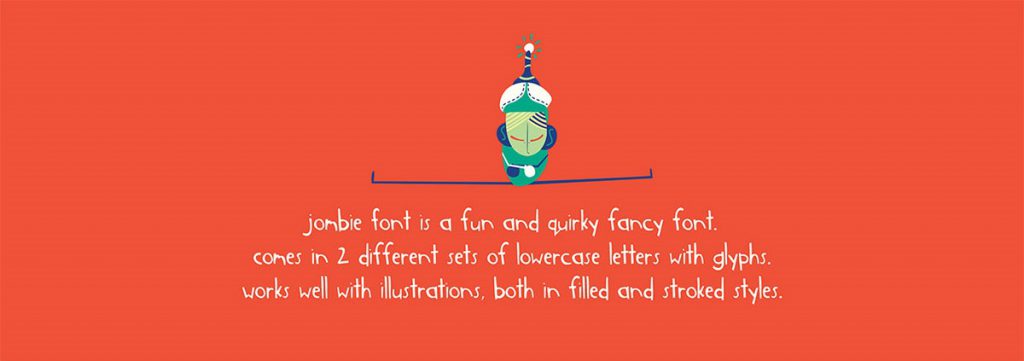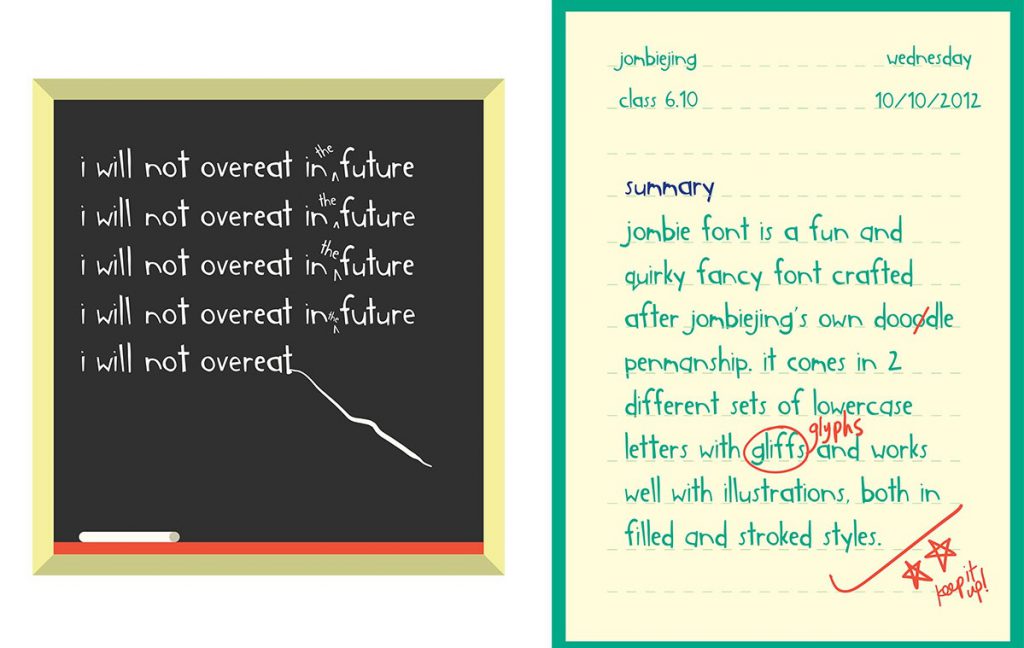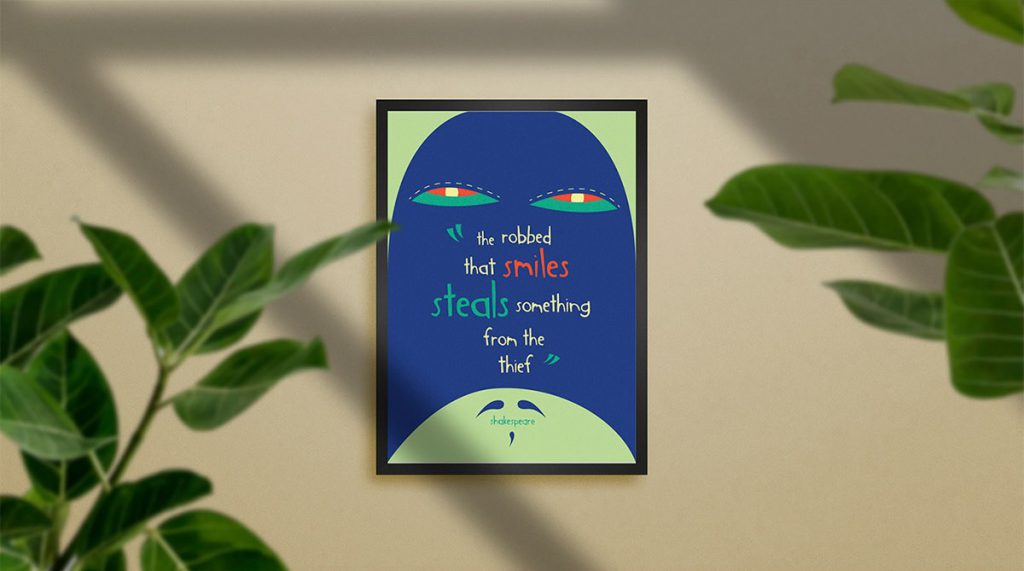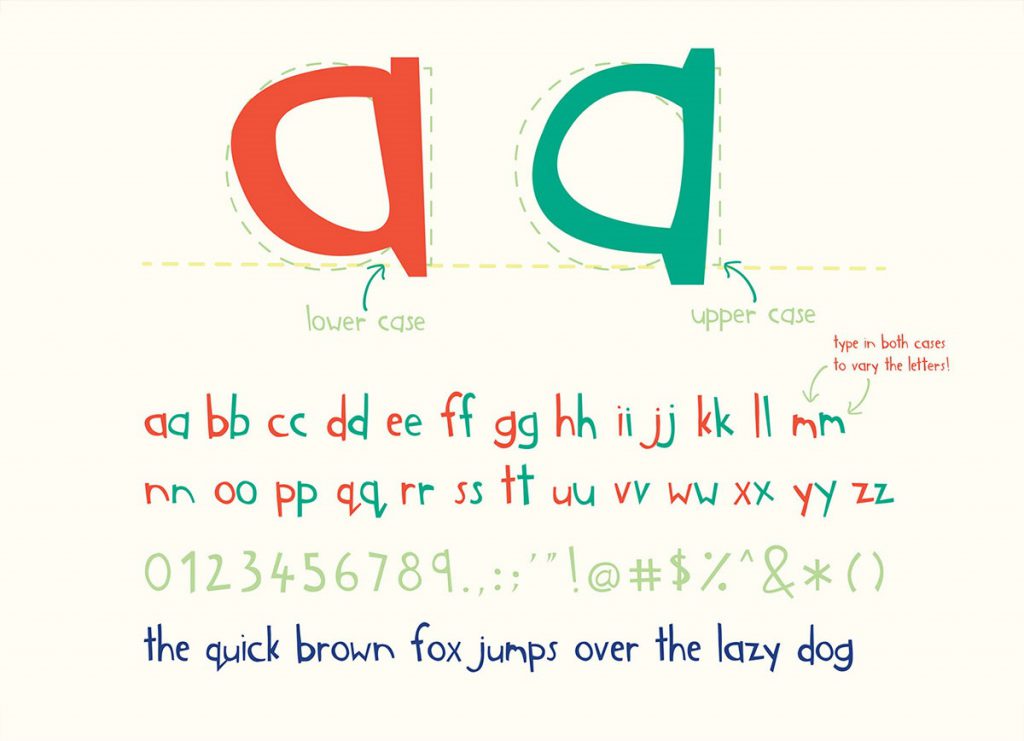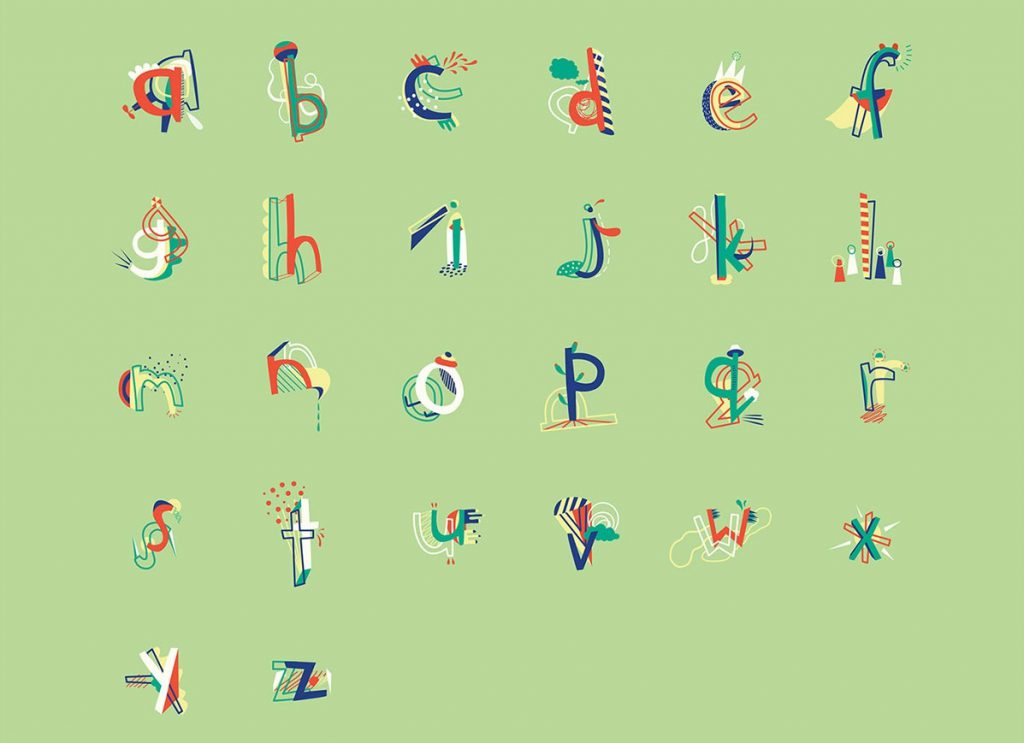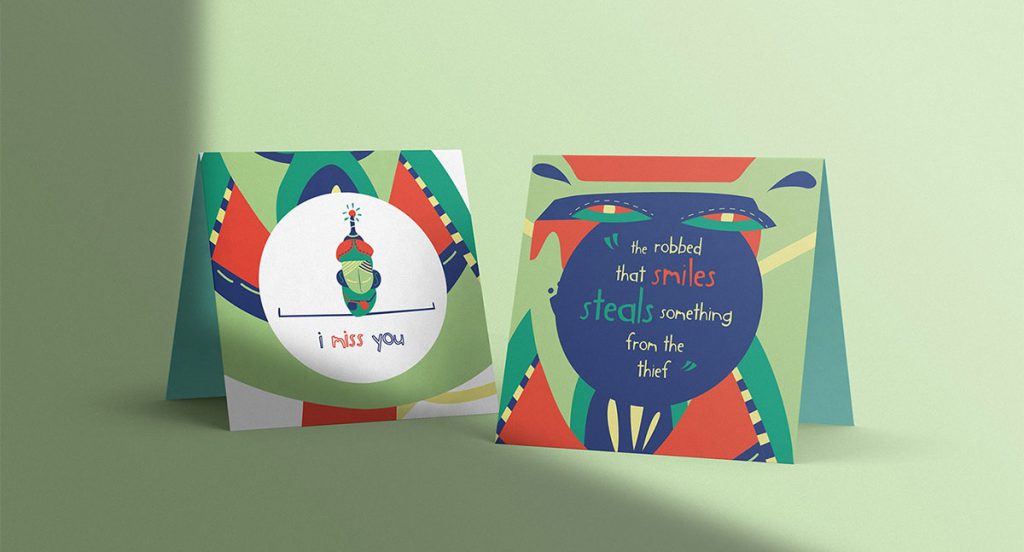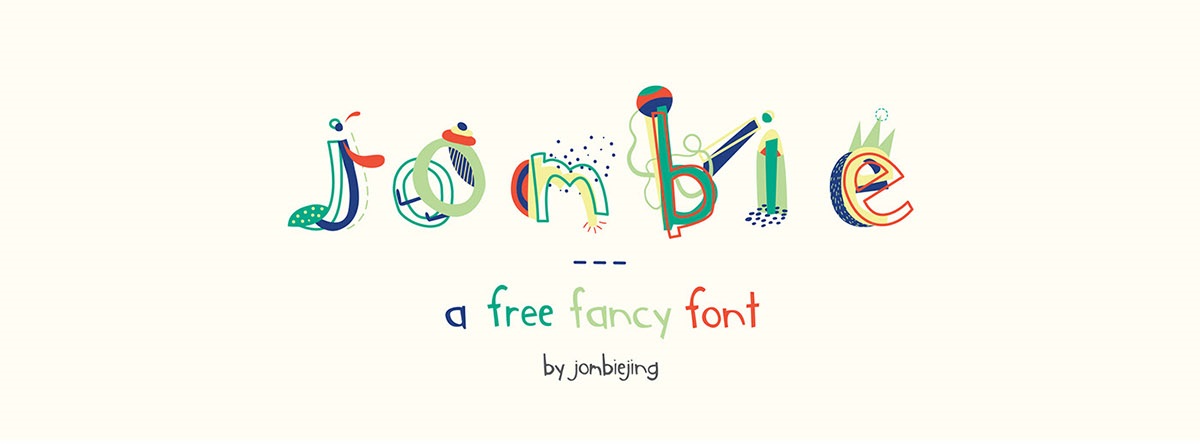
Jombie: Free Fancy Font
Jombie Free Fancy Font is a fun and quirky fancy font. The font comes in 2 different sets of lowercase letters with glyphs. Works well with illustrations, both in filled and stroked styles.